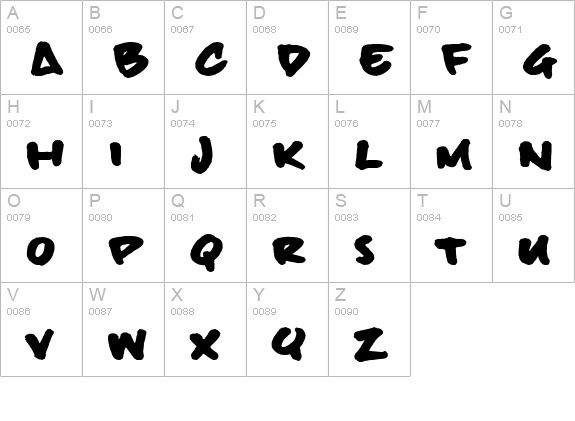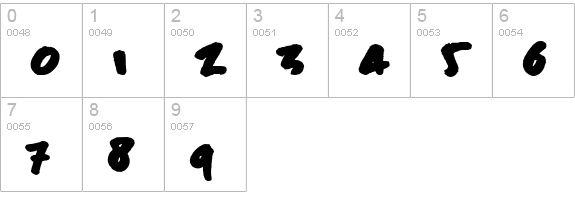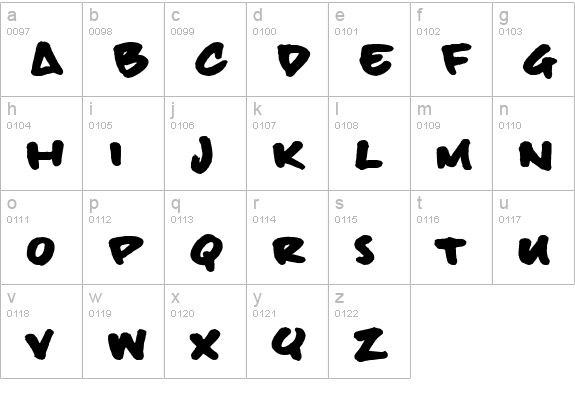
billieBoldHand Font Details
Introducing billieBoldHand font - a modern and stylish typeface that exudes elegance and sophistication. Its bold and flowing design makes it perfect for various design projects, from branding to packaging and everything in between. With its unique hand-drawn style, billieBoldHand adds a touch of personal flair to any design. What sets billieBoldHand apart is not only its striking appearance but also the fact that it is available for free download at FontsMarket.com. Yes, you read that right - this stunning font can be yours at no cost, allowing you to elevate your designs without breaking the bank. Whether you're working on a logo, poster, or website, billieBoldHand is sure to make a lasting impression. Download this versatile font today and unleash your creativity with its distinctive charm and flair.